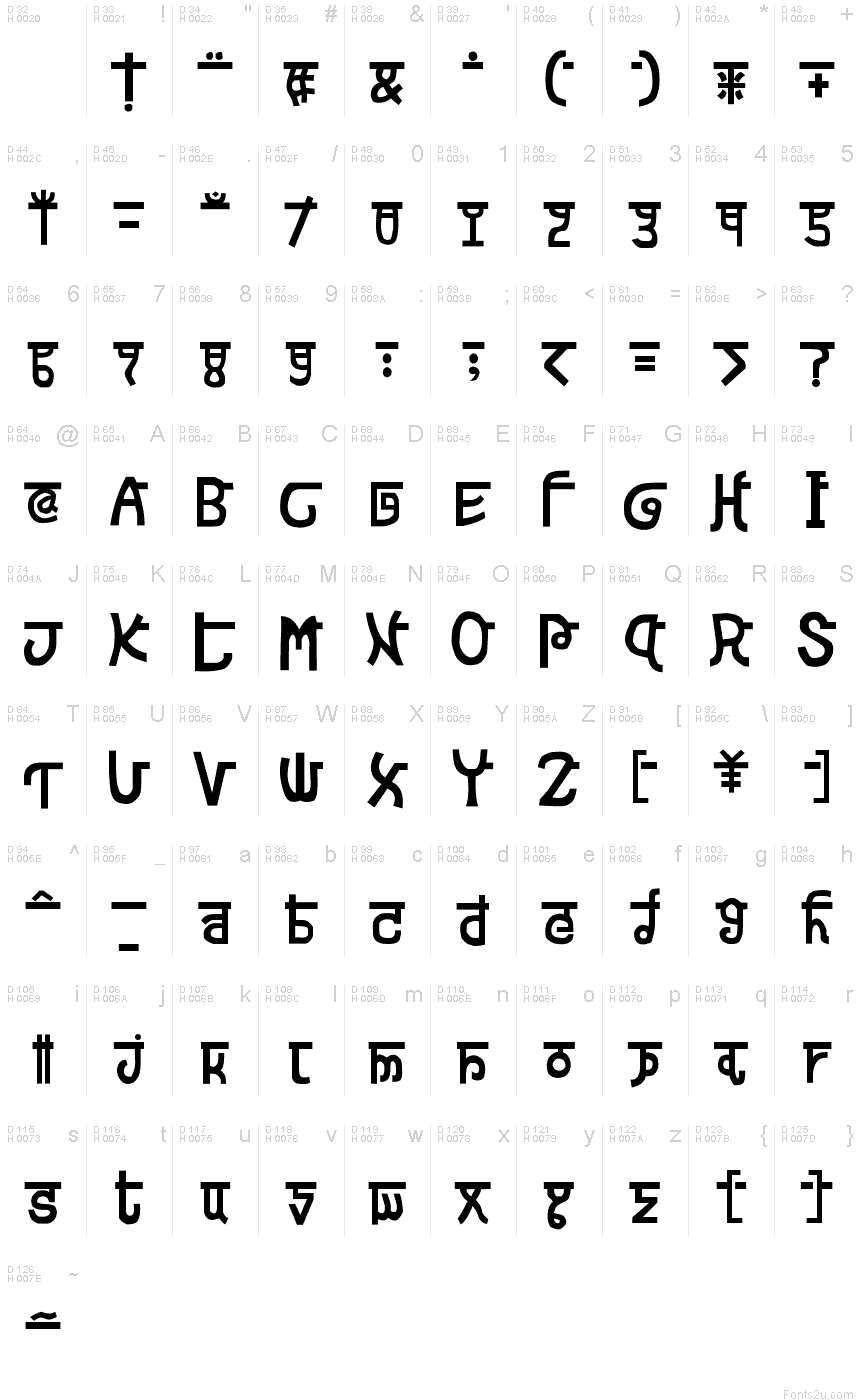
Devanagarish
Devanagarish font by Tamon Yahagi is a free foreign-look decorative typeface that turns Latin letters into a playful echo of Devanagari script. Thick, inky strokes and a continuous headline bar stitch the characters together, giving words a long, horizontal sweep that feels both rhythmic and slightly futuristic. The mix of rounded bowls and angular cuts adds a lively, hand-drawn energy that jumps out in bold settings.
Using Devanagarish, you can instantly signal South Asian–inspired themes on posters, restaurant menus, game titles, event flyers, album art, or book covers without sacrificing legibility. This free font works best at larger sizes where the connected headline and quirky shapes can really breathe; pair it with a clean geometric sans for body text to keep layouts readable and visually grounded.